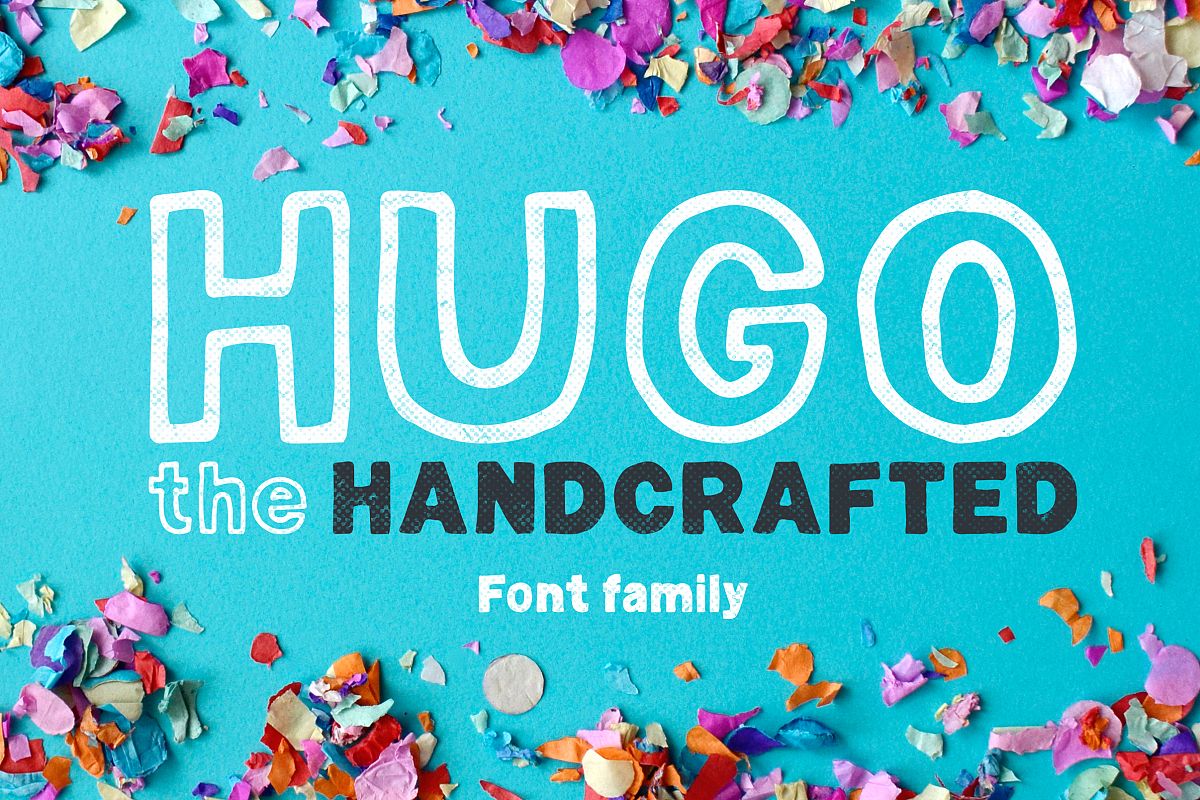
Hugo - The huge handlettered family
Hugo-Bold
Hugo
"Hugo" is huge font designed for eye-catching headings and titles.
It's folk sans-serif font family touched with honest handcreafted feeling. Perfect for noticable titles and headings, badges, overlay photos, or anything which needs unmistakable bold text with kind look. Kerned with love.
Font include upper and lowercase characters, comes in two weights.
Hugo regular
Hugo bold